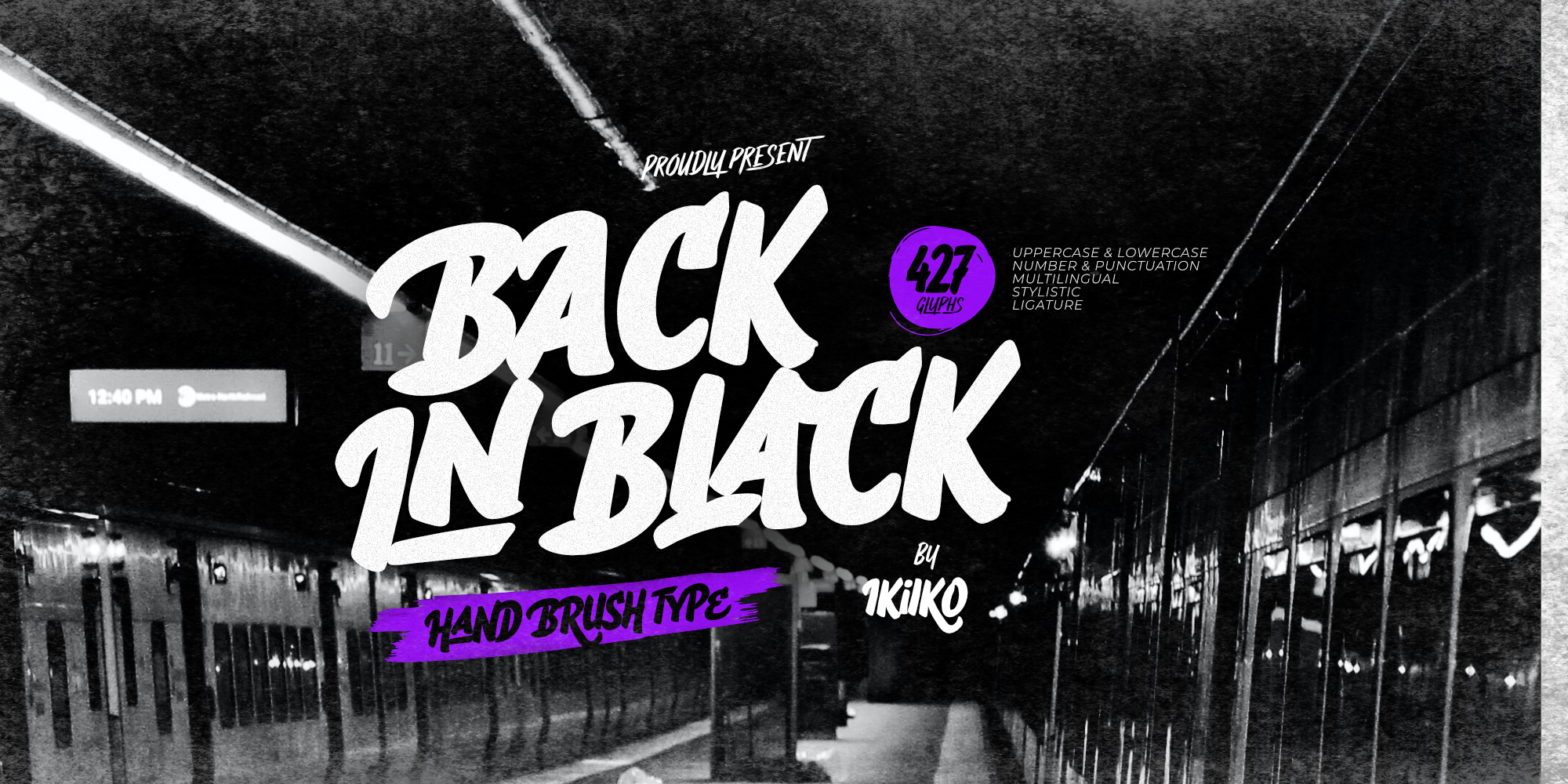
Back In Black Font is ideal for rock band logos, heavy metal album covers, biker culture branding, leather goods marketing, motorcycle event promotions, tattoo parlor signage, nightclub advertising, rebellious fashion campaigns, extreme sports branding, and edgy entertainment venues. This powerful typeface works exceptionally well for music industry clients, alternative lifestyle brands, underground venues, and rebellious businesses that want to communicate raw attitude, rock authenticity, and uncompromising edge in their visual identity.
What makes Back In Black Font exciting is its authentic representation of rock and roll rebellion combined with commanding visual presence. The boldly crafted letterforms feature aggressive angles, powerful weight, and rock-solid character that instantly communicate attitude and uncompromising strength. Each character has been designed with maximum impact and rebellious flair that ensures impossible-to-ignore presence while maintaining excellent readability. The font's rock-solid personality makes it perfect for brands that want to communicate authenticity, rebellion, and the timeless power of rock culture in their marketing materials.
The Back In Black Font family includes multiple rock-inspired variations featuring Regular, Heavy, Distressed, and Shadow styles with additional grunge effects and rebellious alternates. Each style maintains the font's characteristic rock attitude while providing different levels of intensity and visual aggression. The complete family ensures brand consistency across all materials while giving designers the flexibility to create powerful layouts that capture the raw energy and rebellious spirit of rock culture.
The versatility of Back In Black Font extends across numerous rock and alternative design applications. It works exceptionally well in music marketing, band merchandise, venue branding, alternative fashion, and rebellious advertising campaigns. The font's commanding presence makes it ideal for brands targeting rock enthusiasts, alternative culture followers, and audiences seeking authentic rebellious expression.
For designers seeking a font that embodies rock rebellion with authentic attitude, Back In Black Font represents the ultimate choice. Its aggressive appearance suits rock brands while maintaining excellent impact across all media. The font's solid baseline and powerful proportions create striking visual hierarchies that command respect and communicate uncompromising rock authenticity.